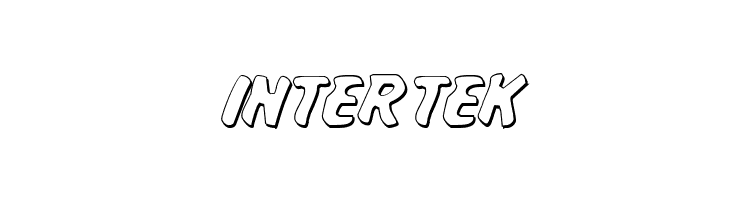
Sugo Pro Classic Trial Regular Font
- Font: Sugo Pro Classic Trial Regular
A bold, shadowed font with rounded, italicized characters for a playful look.